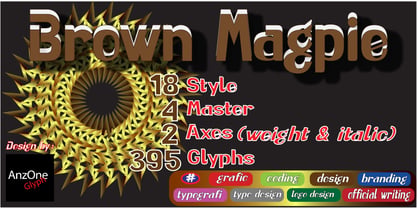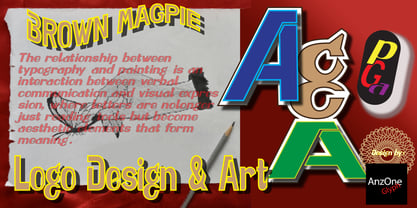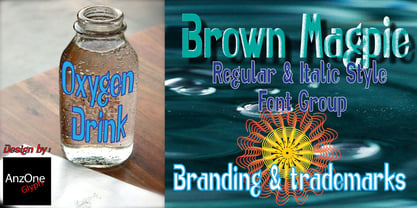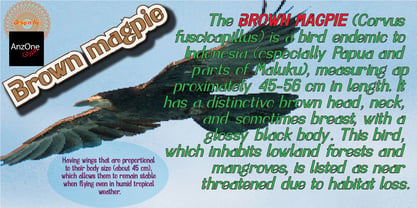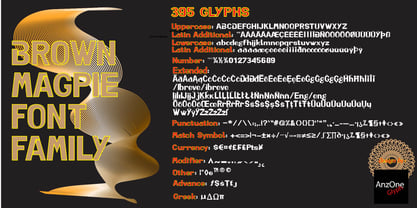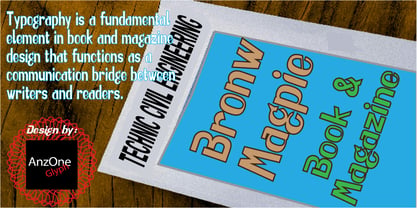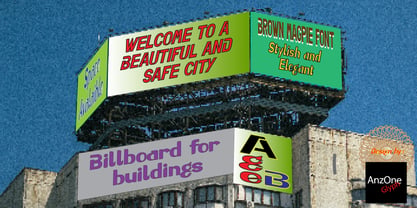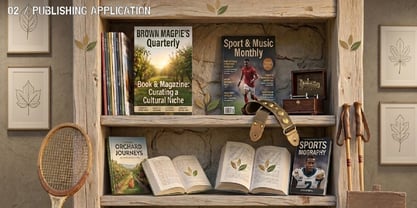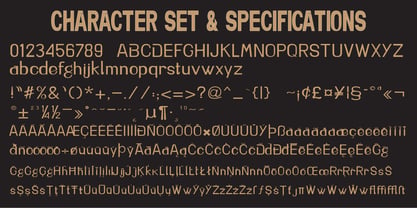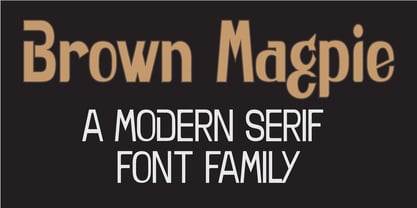
Brown Magpie
The Brown Magpie Font Family was designed by Irwansyah and published by Anzone glyph. Brown Magpie contains 18 styles and family package options. More about this family
Brown Magpie a versatile & dynamic display font family Elevate your creative projects with Brown Magpie, a modern and powerful font family meticulously crafted by AnzOne Glyph. Designed for impact and flexibility, this font is the perfect toolkit for designers who need a seamless blend of bold aesthetics and technical precision. Whether you are working on a high-end branding project, official corporate documents, or intricate graphic layouts, Brown Magpie delivers a professional edge that stands out. Powerful Features & Specifications: 18 Versatile Styles: A comprehensive range of weights to cover everything from delicate headlines to bold statements. 4 Master Designs: Engineered for perfect balance and consistency across all styles. Variable Font Technology: Featuring 2 Axes (Weight & Italic), allowing you to fine-tune the thickness and slant to fit your exact design needs. 395 Extensive Glyphs: Includes a full set of uppercase, lowercase, numbers, symbols, and punctuation. Multipurpose Functionality: Optimized for Branding, Logo Design, Typography, Coding, and Official Writing. Perfect For: Brand Identity: Create memorable logos and cohesive brand systems. Editorial & Layouts: High readability for magazines, posters, and web design. Professional Documentation: Adds a modern, authoritative touch to official letters and reports. Digital Innovation: A unique choice for UI/UX elements and creative coding interfaces.